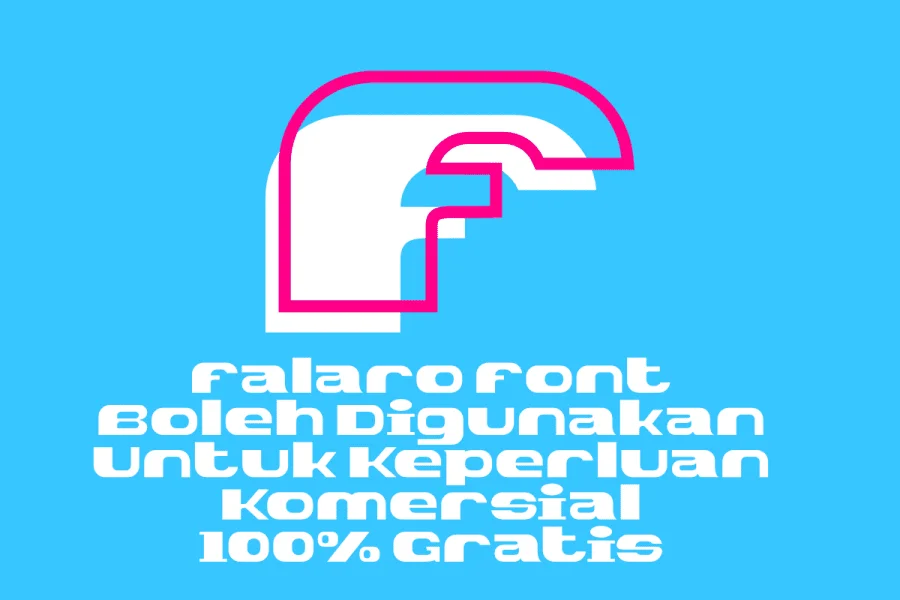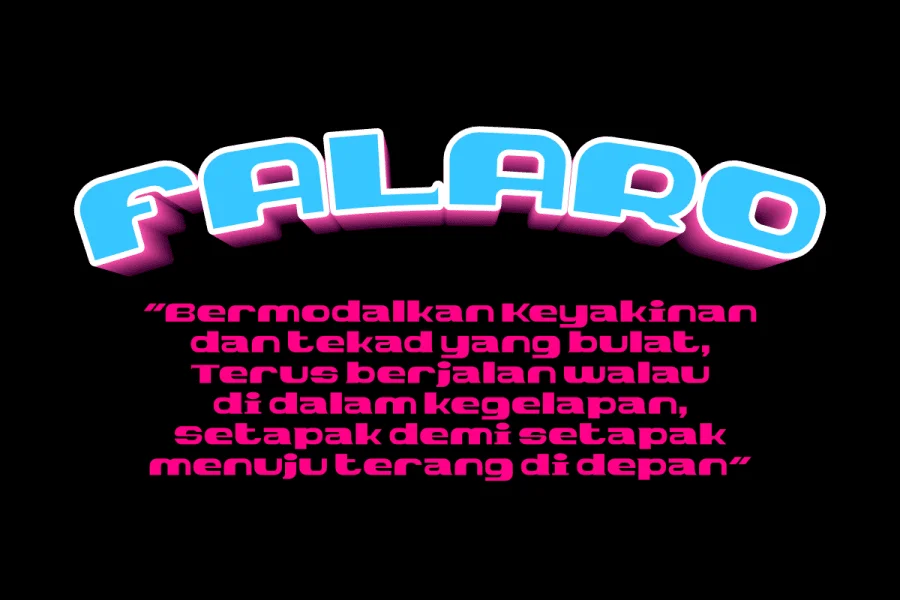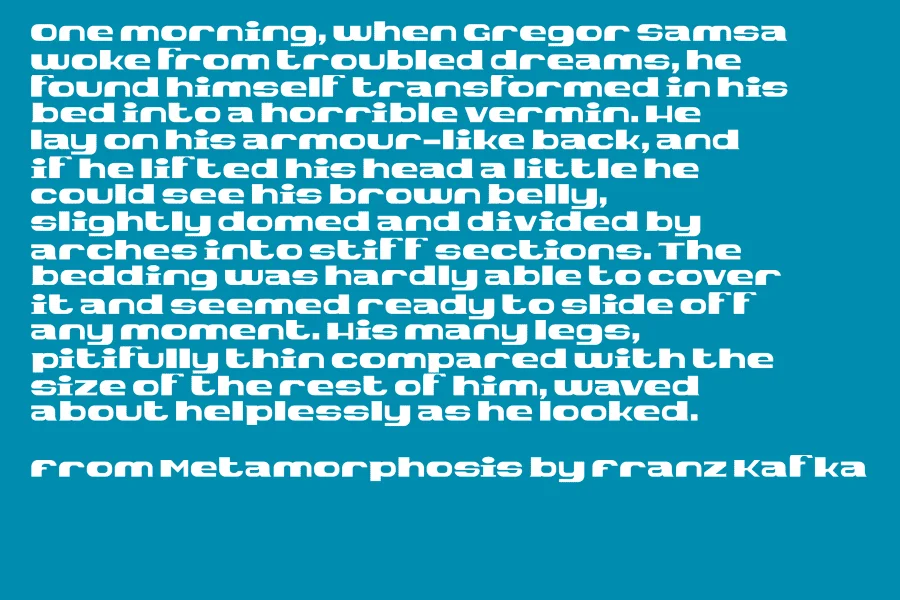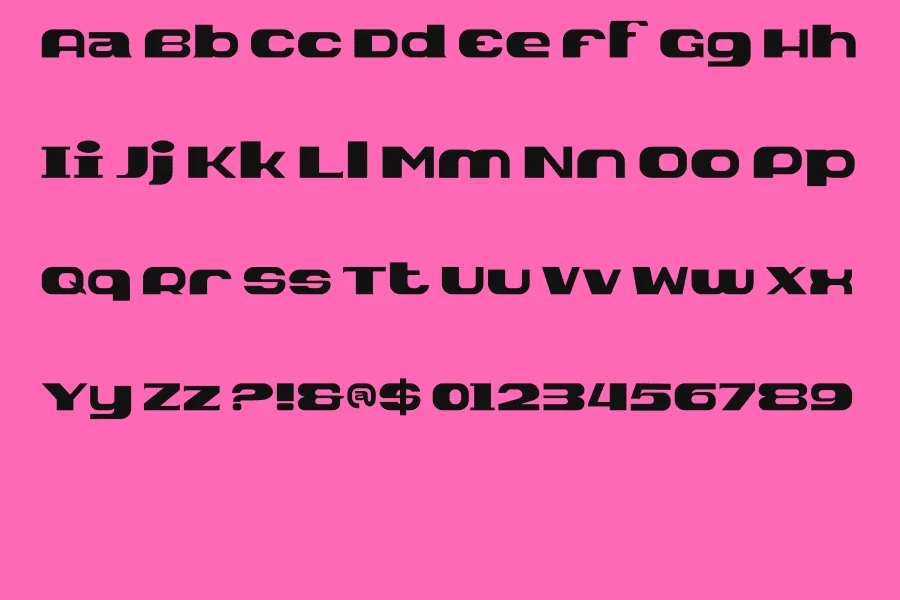
FALARO Font addresses a real challenge designers face — finding a display typeface that holds visual weight without losing letterform clarity. Whether you're working on a logo, a product label, or a social media header, choosing the wrong font breaks the layout before a single user reads a word.